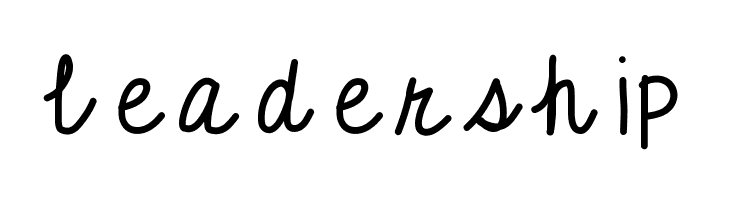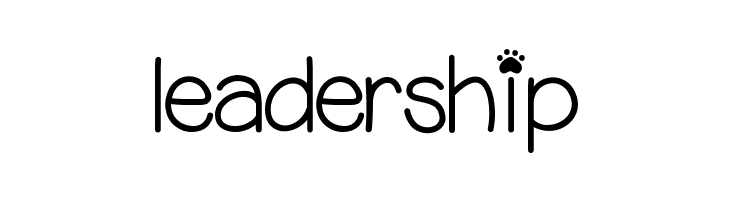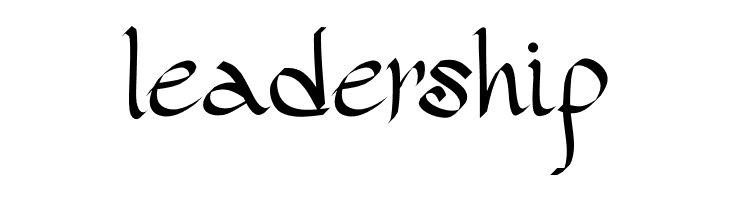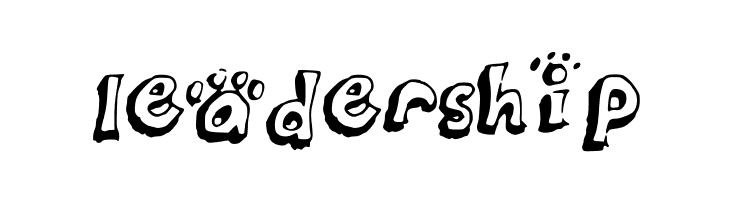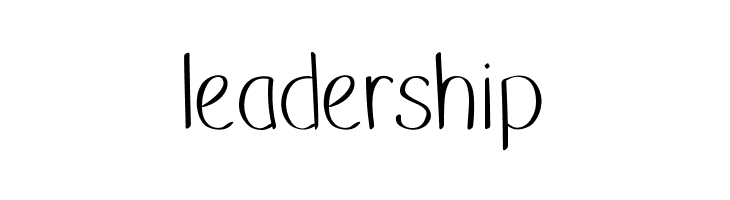
Decorative font using illustrated human profiles and tribal-style symbols.
An ornate Blackletter font with intricate detailing and bold strokes.
A modern, clean sans-serif font with excellent legibility and balanced proportions.
A modern, medium-weight italic sans-serif font with clean lines and balanced proportions.
A bold, stencil-style font with a vintage, industrial feel.
A pixelated, retro-style font with a blocky, digital appearance.
A pixelated, dot-matrix style font with a retro digital aesthetic.
A pixelated, retro-style font with a blocky, digital appearance.
A modern, clean typeface with consistent stroke width and excellent readability.
A modern, italic typeface with clean lines and balanced proportions.
A minimalist, handwritten font with smooth, flowing lines and a casual feel.
A playful, handwritten font with a whimsical and casual style.
A bold, playful font with a 3D effect and thick black outlines.
A modern, sans-serif font with a clean and geometric design.
A modern, clean sans-serif font with uniform strokes and excellent readability.
A modern, clean sans-serif font with excellent readability and balance.
A modern, medium-weight italic sans-serif font with clean lines and normal spacing.
A playful, hand-drawn font with a whimsical and quirky style.
A bold, rounded, and modern geometric font with uniform thickness.
A playful, bold, and rounded font with a whimsical, hand-drawn style.
A playful, handwritten font with a whimsical and casual style.
A playful, handwritten-style font with a whimsical and friendly appearance.
A playful, handwritten font with elongated, whimsical characters.
A monospaced typewriter-style font for Gurmukhi script with a vintage aesthetic.
A bold, engraved Punjabi script with a typewriter aesthetic.
A classic Punjabi typewriter font with bold, uniform strokes and high readability.
A playful, rounded font with whimsical paw print accents.
An elegant, flowing script font with a natural handwriting style.